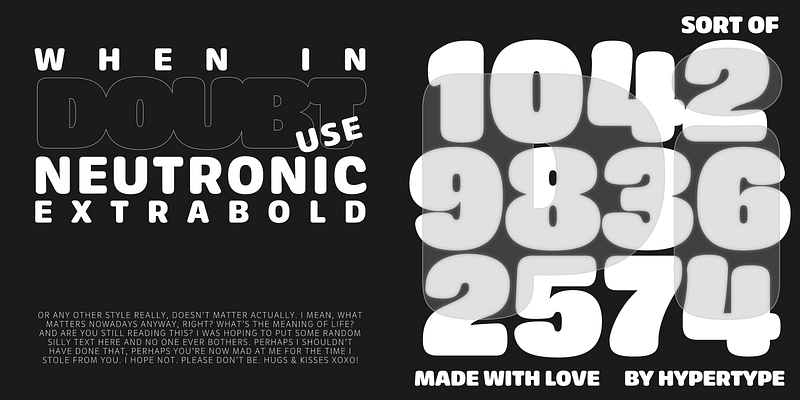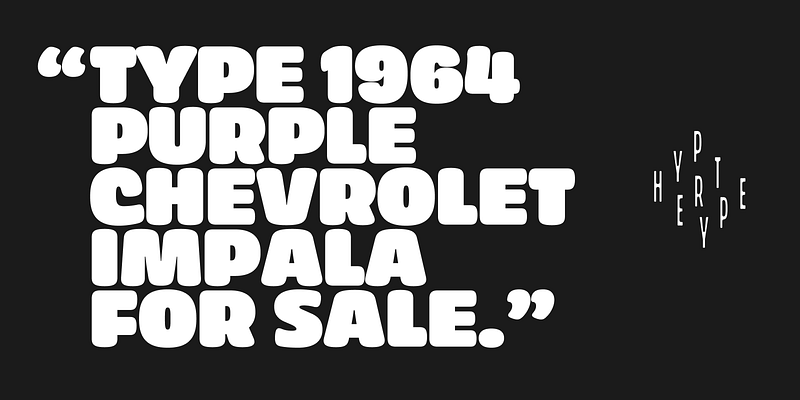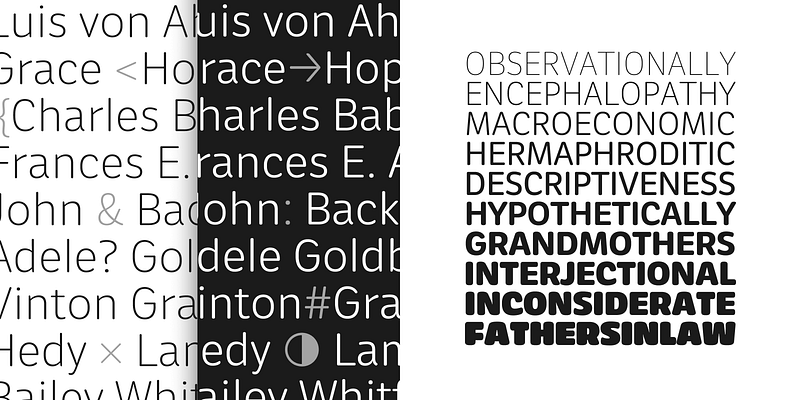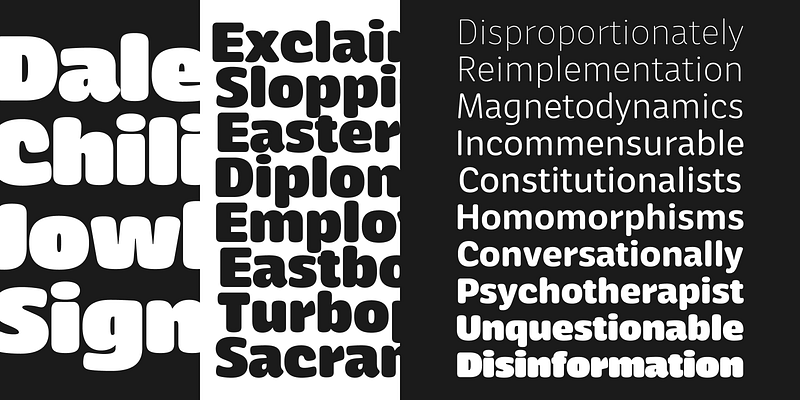
Neutronic Rounded brings a softer character to the Neutronic family. Instead of perfectly circular stroke endings, the terminals have an organic quality — shaped rather than simply capped — giving the letterforms a more natural, hand-finished feel.
The weight range runs from thin to heavy, and the personality shifts along with it. The regular weights are workhorses for text, readable and unobtrusive. As the weights get heavier, the rounded forms become increasingly expressive — the bolds and heavies have real presence for headlines and display work.
Vertical metrics are tuned for UI work: text sits centered in buttons and aligns cleanly with icons. The family supports 247 languages, making it practical for brands working across markets.